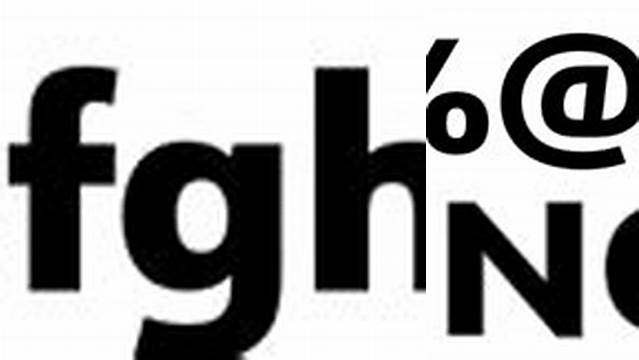
URW Form Expand Heavy Font: Free Download Guide
Are you looking for a bold and impactful font to elevate your design projects? Look no further! The URW Form Expand Heavy font is a fantastic choice for headlines, posters, branding, and any application where you need a strong visual presence. In this article, guys, we'll dive deep into everything you need to know about this incredible typeface, including where to find free downloads, how to use it effectively, and why it's such a popular option among designers.
What is URW Form Expand Heavy?
Let's start with the basics. URW Form Expand Heavy is a sans-serif typeface known for its robust and expanded letterforms. This means the letters are wider than your average font, giving them a powerful and eye-catching appearance. The "Heavy" designation indicates its weight, meaning it's a very bold font, perfect for grabbing attention. Its clean, modern lines make it versatile for a variety of design styles, from minimalist to more expressive. The URW Form family, in general, is a well-respected collection of typefaces, and the Expand Heavy variant is a standout choice when you need something that really packs a punch. Think about using it for website headers, call-to-action buttons, or even logos where you want to convey strength and confidence. But remember, with great power comes great responsibility! Don't overuse it, or it might lose its impact. Use it strategically to highlight key elements and make them pop. The beauty of URW Form Expand Heavy lies in its simplicity and its ability to command attention without being overly decorative. It's a workhorse font that can add a touch of sophistication and professionalism to any project, as long as you know how to wield its power effectively. So, before you go download it and slap it on everything, take a moment to consider how you can best use its bold personality to enhance your designs. Trust me, a little bit of planning goes a long way in making this font truly shine.
Why Choose URW Form Expand Heavy?
So, why should you choose URW Form Expand Heavy over the countless other fonts out there? Well, there are several compelling reasons! Firstly, its strong visual impact is undeniable. This font immediately commands attention, making it ideal for headlines, titles, and any text you want to stand out. Imagine using it on a poster – it's going to grab people's eyes from across the room! Secondly, it boasts excellent readability, even at larger sizes. While some bold fonts can become difficult to read, especially in longer blocks of text, URW Form Expand Heavy maintains its clarity. This is crucial for ensuring your message is not only seen but also easily understood. Think about website design – you want visitors to be able to quickly scan and digest the information on your page. Thirdly, its versatility is a major plus. Despite its bold nature, URW Form Expand Heavy can be used in a wide range of design projects. It works well for both print and digital applications, from posters and brochures to websites and social media graphics. This adaptability makes it a valuable addition to any designer's toolkit. Fourthly, and perhaps most importantly for many of us, it's often available for free download! We'll get into the specifics of where to find these free versions later, but the fact that you can access such a high-quality font without spending a dime is a huge advantage. Finally, URW Form Expand Heavy has a timeless quality. It's modern enough to feel fresh and contemporary, yet classic enough to avoid looking dated anytime soon. This means you can confidently use it in your projects knowing that it will continue to look good for years to come. In conclusion, URW Form Expand Heavy offers a winning combination of visual impact, readability, versatility, affordability, and timelessness. It's a font that deserves a place in every designer's arsenal.
Tips for Using URW Form Expand Heavy Effectively
Now that you've got URW Form Expand Heavy installed and ready to go, let's talk about how to use it effectively. This font is a powerhouse, but like any powerful tool, it needs to be wielded with care. Overusing it or using it in the wrong context can actually detract from your design rather than enhance it. So, here are some tips to help you make the most of this bold typeface: 1. Use it sparingly. URW Form Expand Heavy is best used for headlines, titles, and other short pieces of text that you want to stand out. Avoid using it for large blocks of body text, as its boldness can become overwhelming and tiring to read. Think of it as a spice – a little goes a long way! 2. Pair it with a simpler font for body text. To create a visually balanced design, pair URW Form Expand Heavy with a cleaner, more legible font for your body text. A classic sans-serif like Open Sans or a serif font like Times New Roman can work well. The contrast between the bold headline and the simpler body text will create a hierarchy and make your design more engaging. 3. Consider the context. URW Form Expand Heavy has a strong, modern feel, so it's well-suited for projects that need to convey strength, confidence, or a contemporary vibe. It might not be the best choice for projects that require a more delicate or traditional look. Think about the overall message you're trying to communicate and choose fonts that support that message. 4. Experiment with different weights and styles. While we've been focusing on the Heavy weight, the URW Form family may offer other weights and styles (e.g., regular, bold, italic). Experimenting with these variations can give you more flexibility in your design. 5. Pay attention to kerning and tracking. Kerning (the spacing between individual letters) and tracking (the overall spacing between letters in a word or line) are crucial for readability and visual appeal. Adjust these settings as needed to ensure your text looks polished and professional. 6. Don't be afraid to break the rules! These tips are guidelines, not rigid rules. Once you've mastered the basics, feel free to experiment and see what works best for your specific project. Design is all about creativity, so don't be afraid to try new things. By following these tips, you can harness the power of URW Form Expand Heavy to create impactful and visually stunning designs.
In conclusion, URW Form Expand Heavy is a fantastic font choice for anyone looking to make a bold statement in their designs. Its strong presence, excellent readability, and versatility make it a valuable asset for various projects. And the fact that it's often available for free download is a major bonus! Remember to use it judiciously, pair it with complementary fonts, and always consider the context of your design. With a little practice, you'll be able to wield this powerful typeface like a pro. So go ahead, guys, download URW Form Expand Heavy, and start creating some amazing designs!